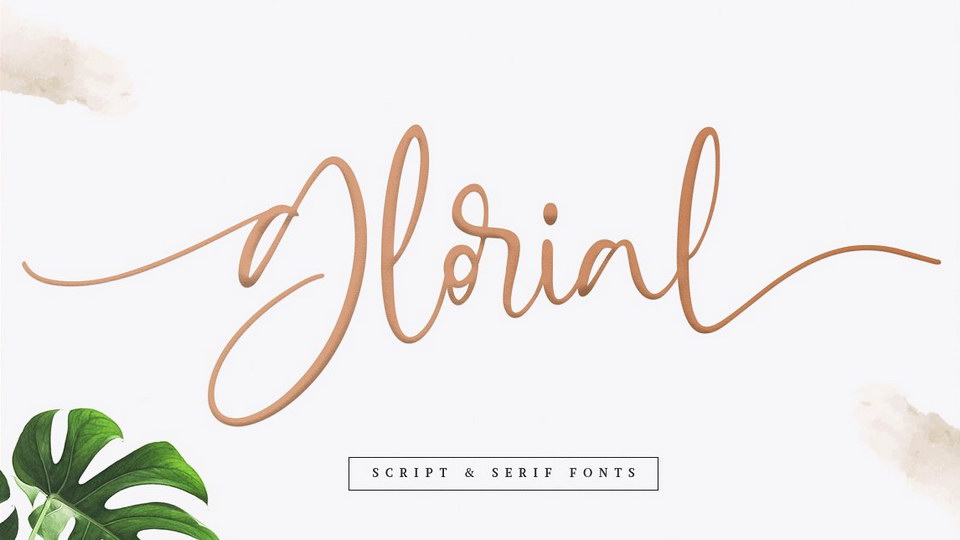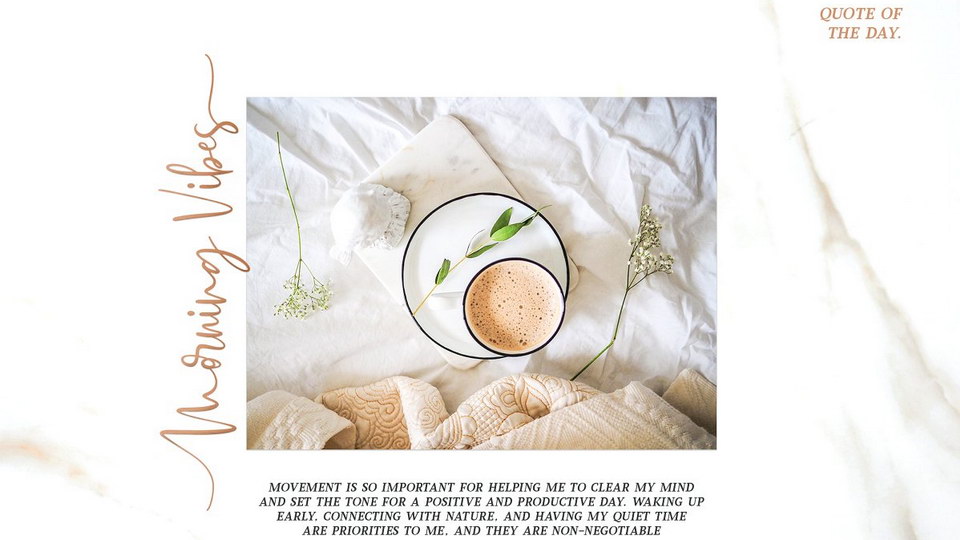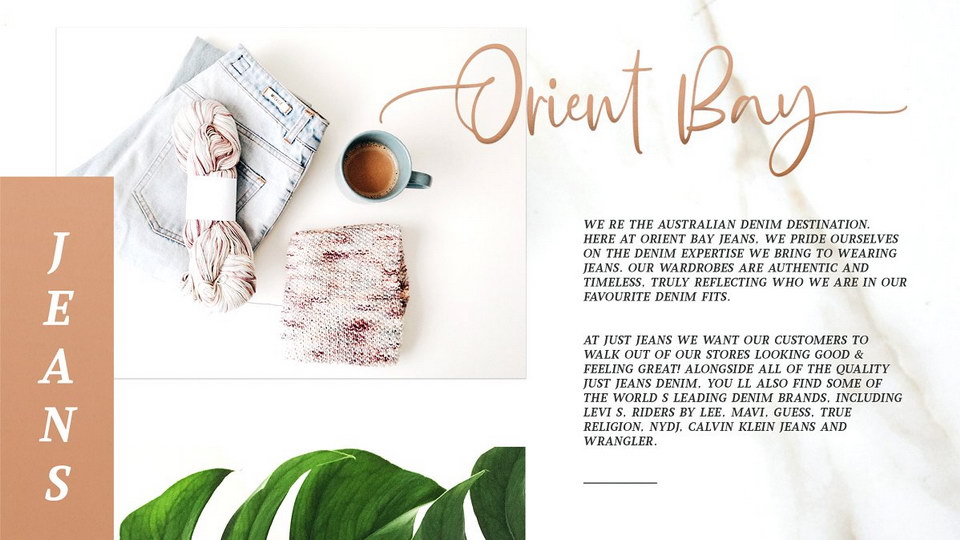
Glorial is a fancy handwritten calligraphy script . Full version includes contemporary serif (regular and slant) that works perfectly together. Glorial Script includes a full set of uppercase & lowercase letters with beginning swashes , a full set of lowercase letters with ending swashes, a full set of contextual alternates lowercase letters , 50+ ligatures features that makes the font look more natural.
Glorial font that special for fashion and matches applies in some designs such as the logotype, brand, magazine, website or blog headlines, packaging, branding, quotes, invitation cards, greeting cards, business cards, and wedding more.